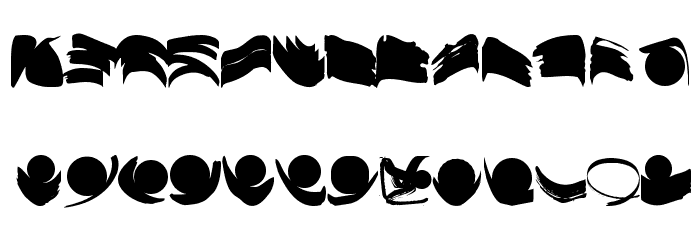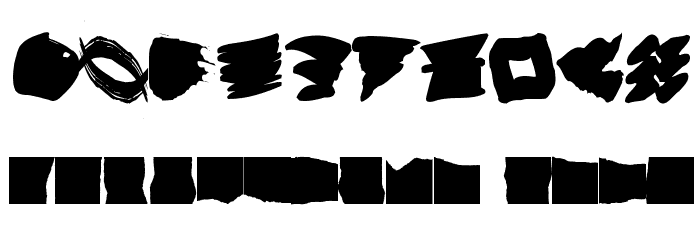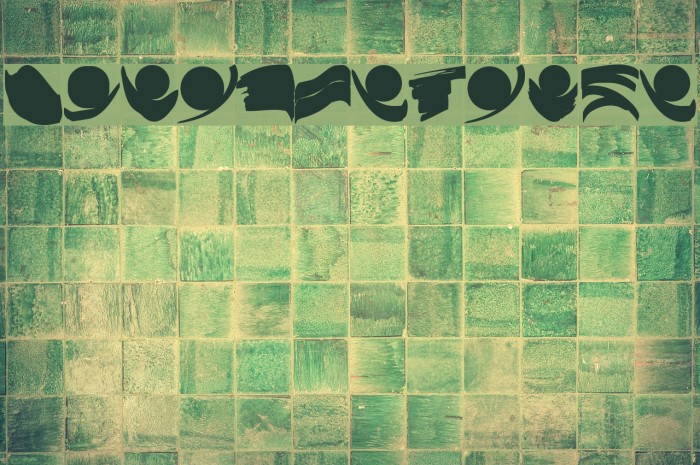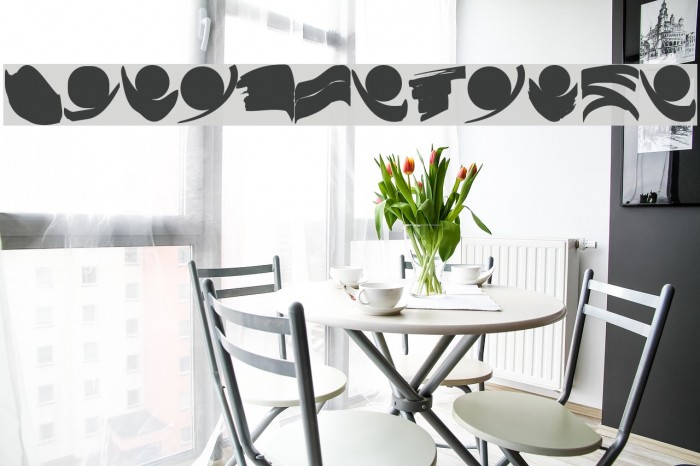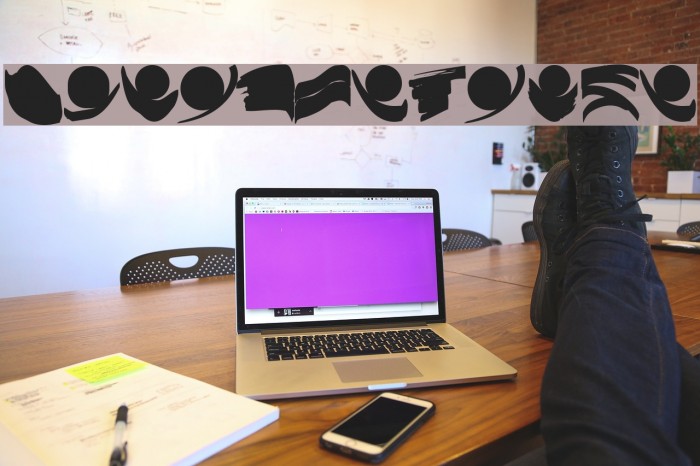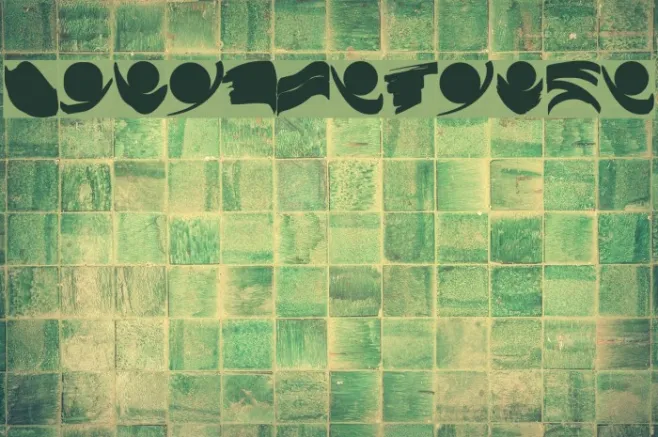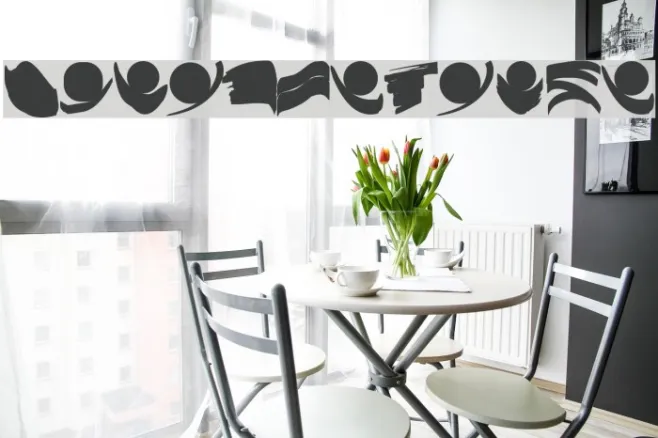
StrokesFonds Font
This font features a bold and expressive brushstroke style, characterized by its dynamic and irregular shapes. Each character appears to be painted with a thick brush, giving it a highly artistic and energetic feel. The strokes vary in thickness, creating a sense of movement and spontaneity. The overall appearance is abstract and avant-garde, making it stand out as a unique and creative typeface. The characters are not uniform, adding to the font's charm and artistic appeal.
A bold, expressive brushstroke font with dynamic, irregular shapes.
- Proposed Projects: Ideal for artistic projects, creative posters, modern art galleries, and unique branding materials.
- Overall Style: Modern, Artistic
- Use Case: Logos, Posters, Artistic Displays